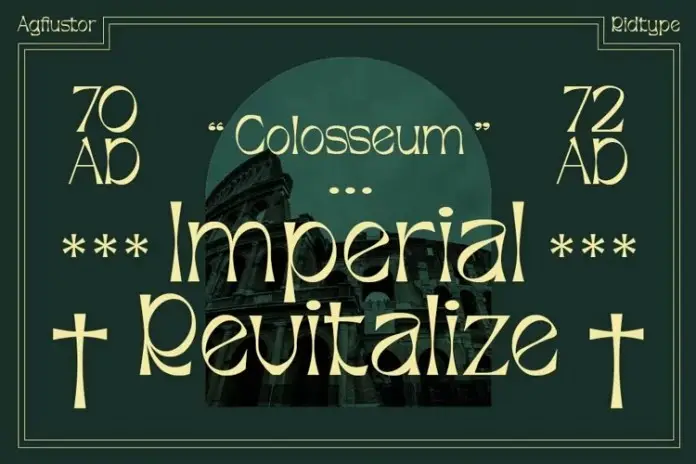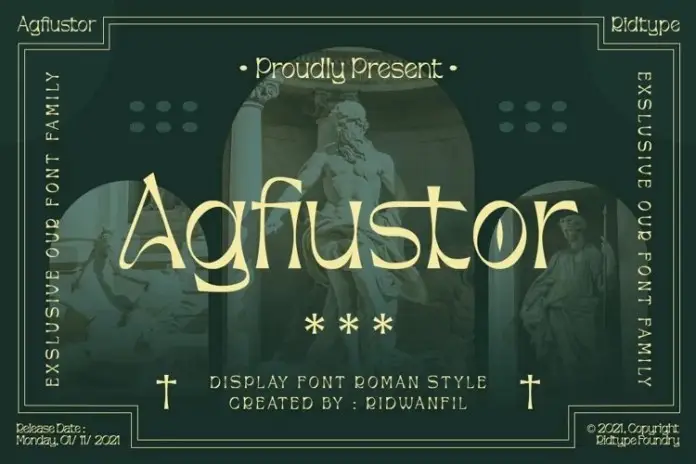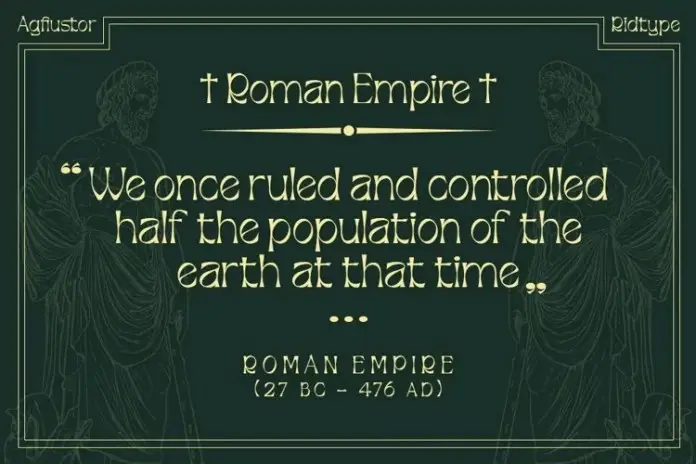
Agfiustor Display Font
The Agfiustor Display Font is a unique and stylish typeface designed to make your projects stand out. With its modern aesthetic and bold character, this font is perfect for a variety of applications including branding, logos, and promotional materials.
• Style: Display
• Ideal for headlines and titles to grab attention.
• Use in web design for a modern look.
• Perfect for print materials like posters and flyers.